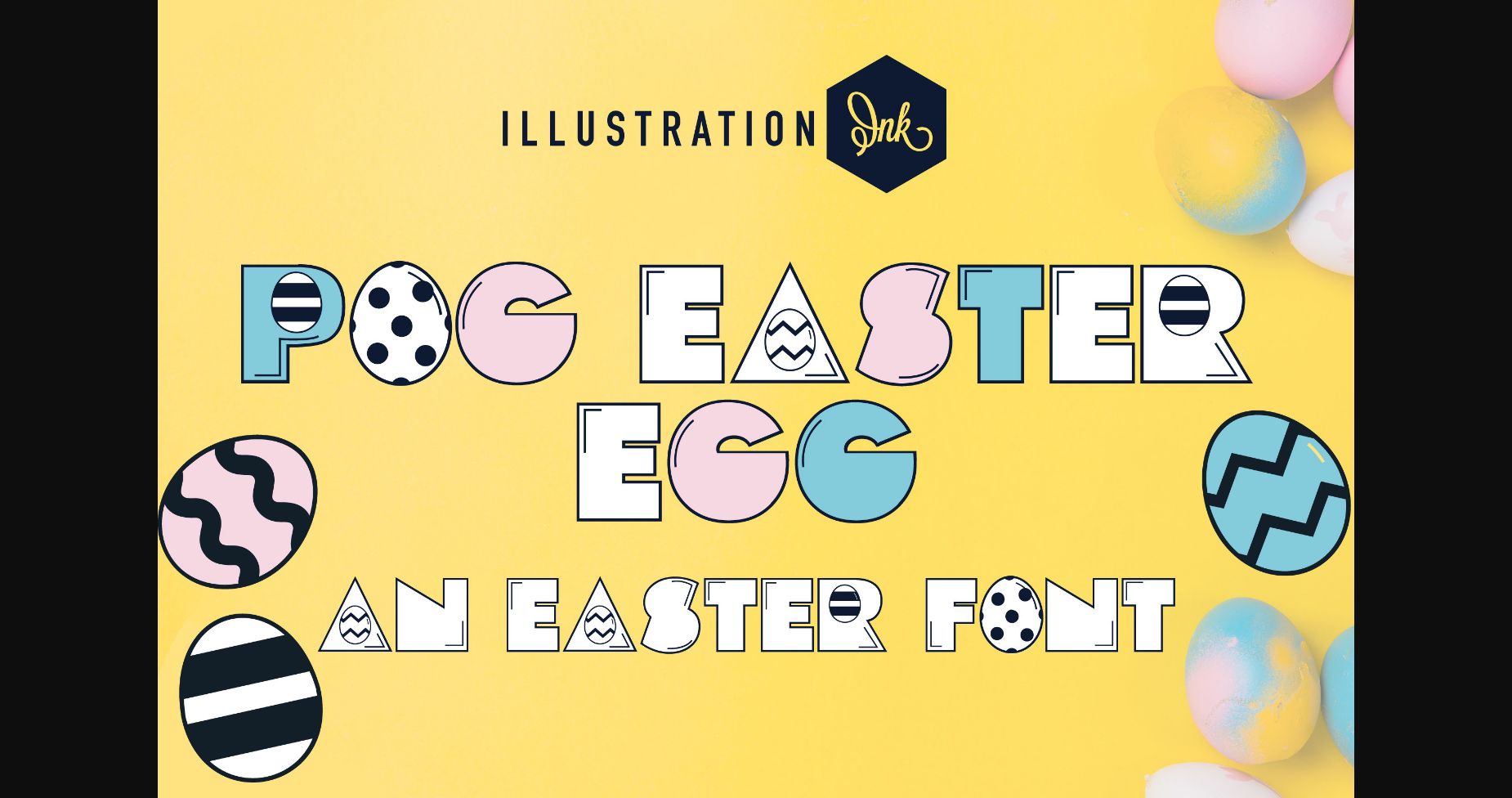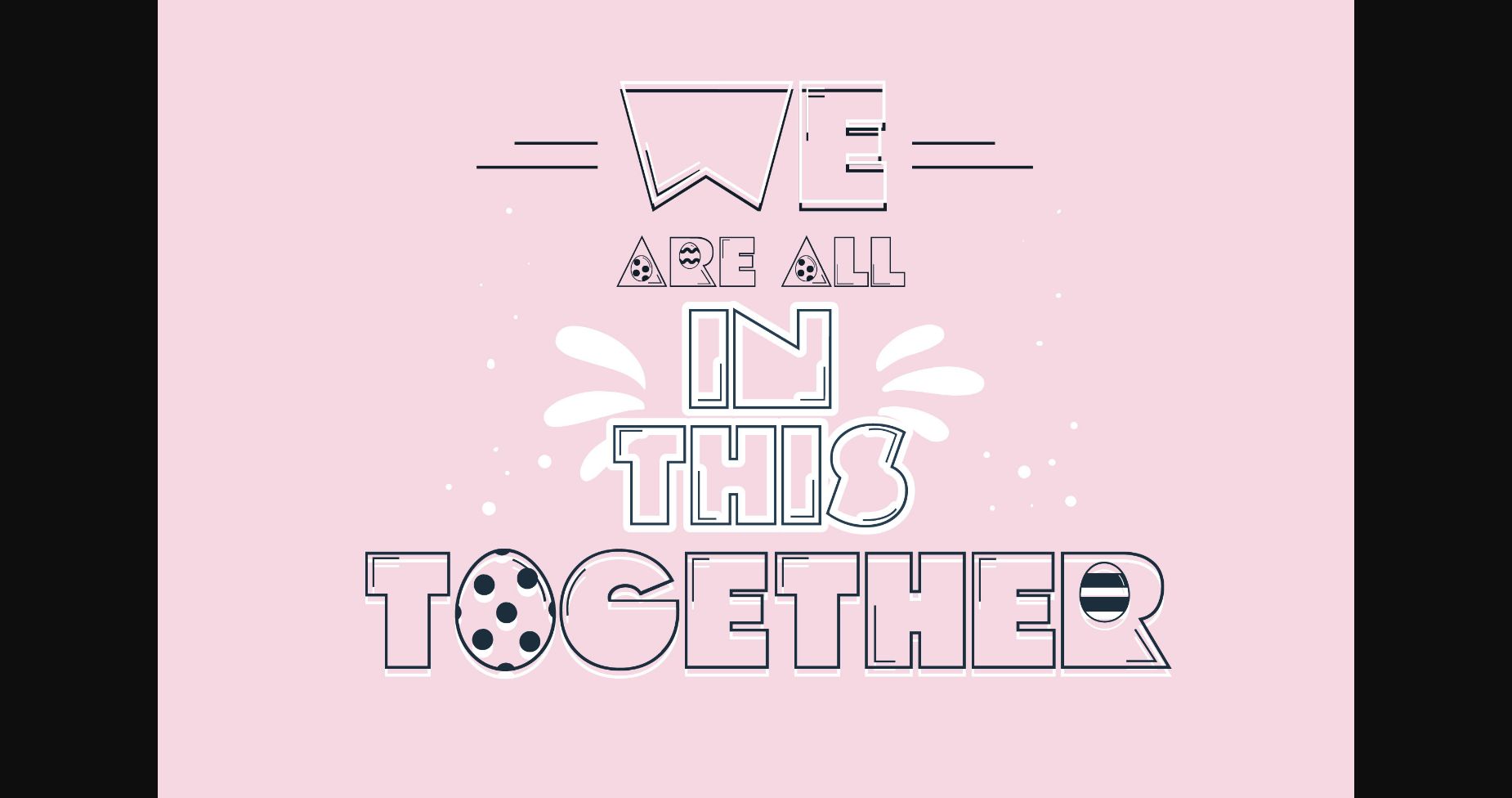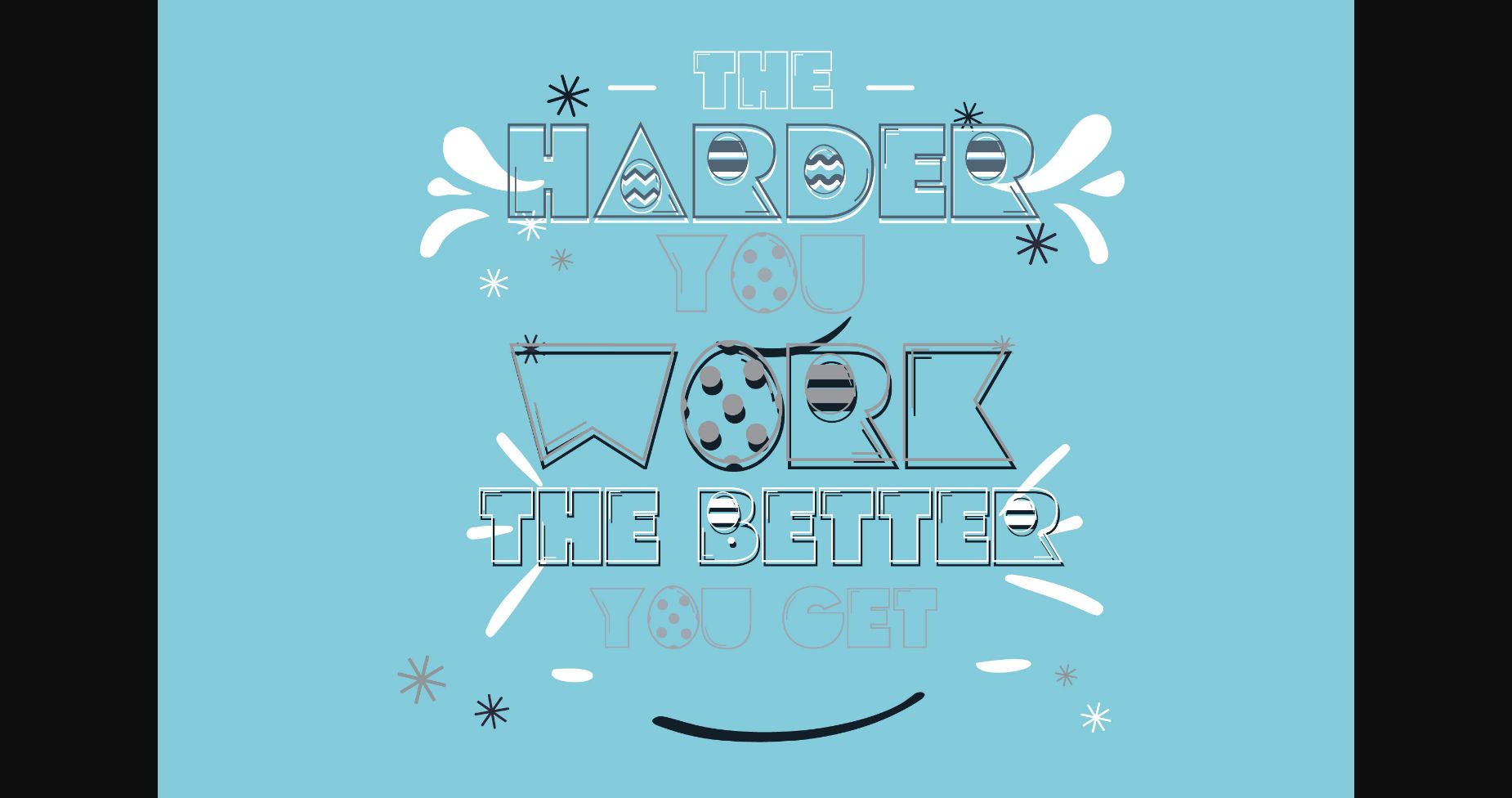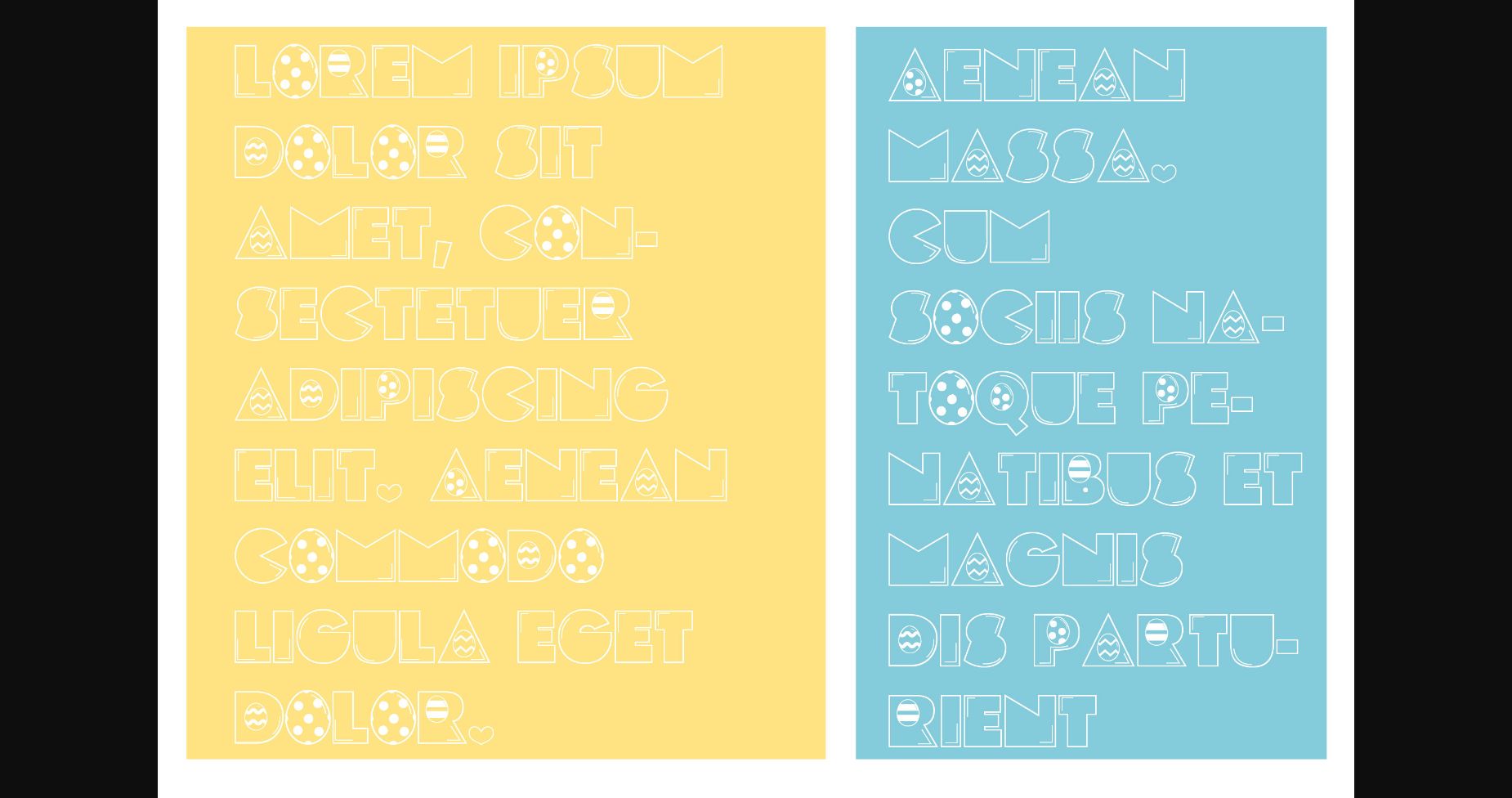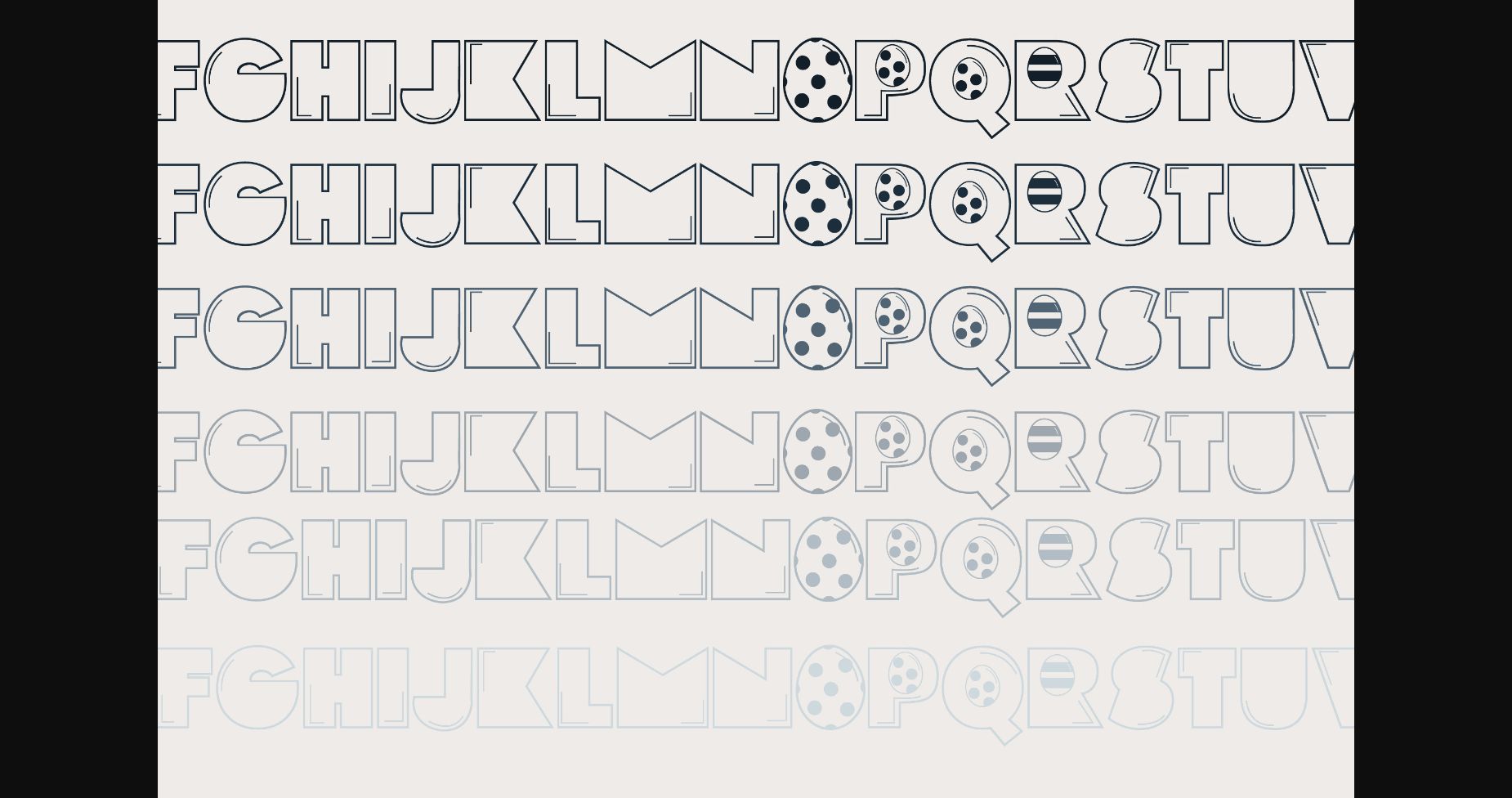
About Pog Easter Egg Font
Introducing a fun and playful font designed in a video game style, perfect for the Easter season. This typeface captures the essence of the holiday with its bold and colorful letters, reminiscent of classic arcade games. Use Pog Easter Egg to add a touch of whimsy to your Easter-themed designs, from social media posts to party invitations.